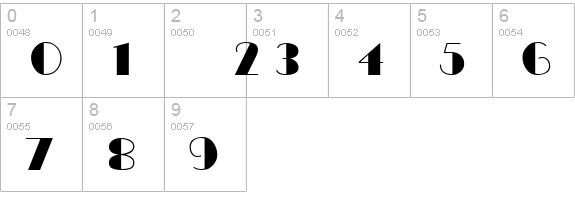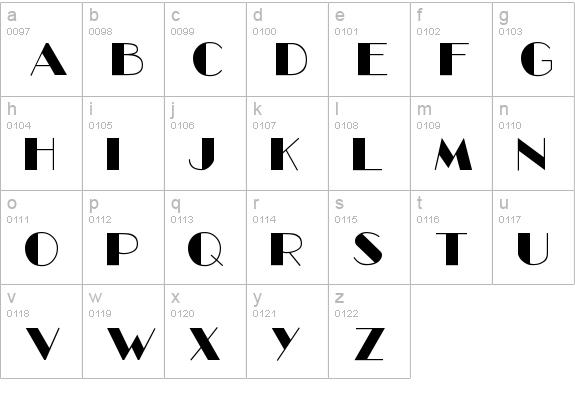
GLitzyPlain Regular Font Details
GLitzyPlain Regular is the standard, neutral variant in the GLitzyPlain typeface family \xE2\x80\x94 well suited to general body text, paragraphs, and standard typographic work.
GLitzyPlain Regular is a sophisticated and elegant font that exudes a sense of glamour and style. Its clean lines and modern aesthetic make it perfect for a wide range of design projects, from branding to invitations to signage. The font features a balance between simplicity and flair, making it versatile and eye-catching. Best of all, GLitzyPlain Regular is available for free download at FontsMarket.com. Whether you're a seasoned designer looking to add a touch of sophistication to your work or a newcomer seeking a stylish font for a project, GLitzyPlain Regular is the perfect choice. Download it today and add a touch of glamour to your designs!